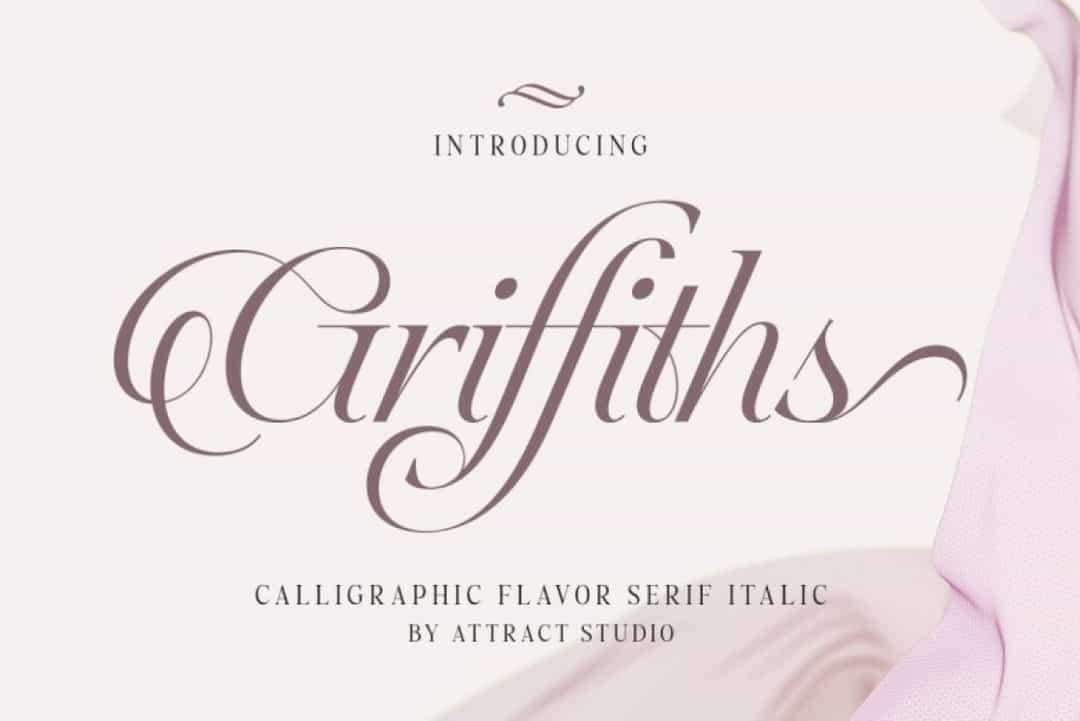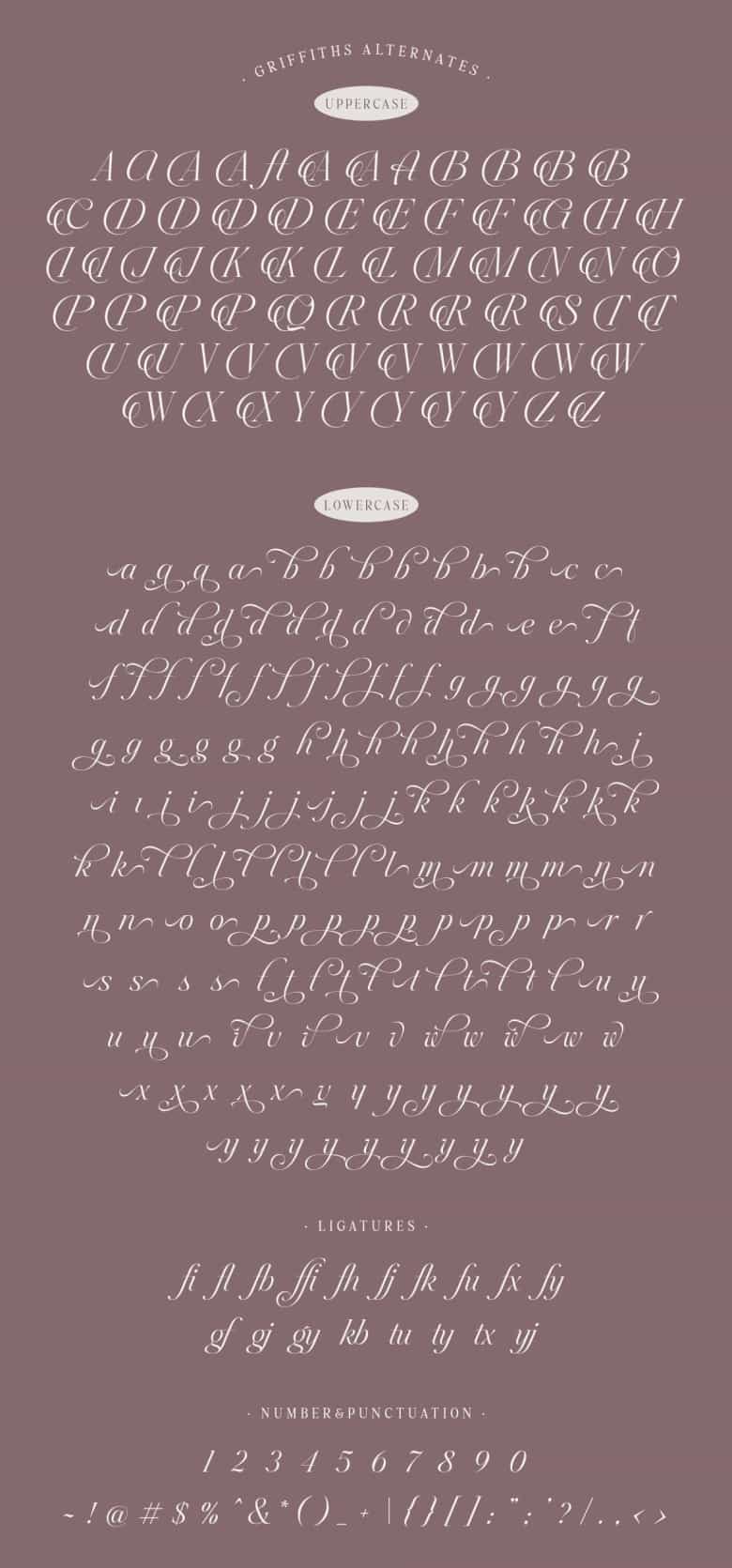
Griffiths can be described as an italic serif font with an elegant yet simplistic design, created to be stylized and then combined with a lively calligraphic font set at a 23 degree angle. Multilingual support and OpenType features like alternatives and ligatures are included as part of Griffiths.